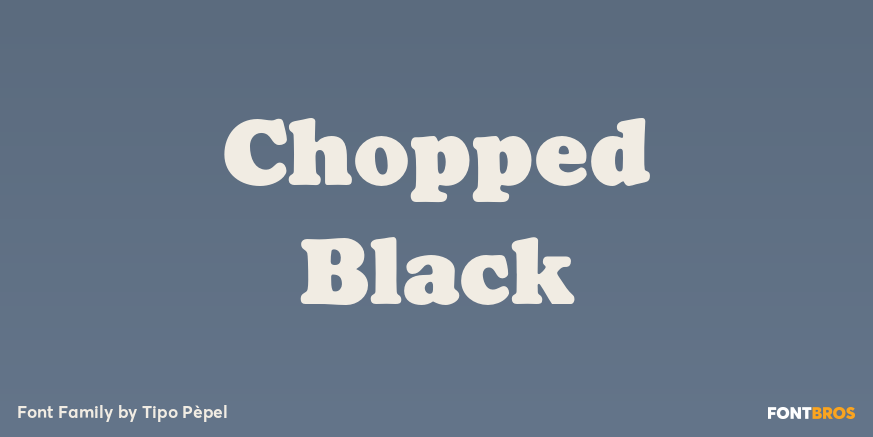
Chopped Black
About Chopped Black
This typeface was inspired by the font Pabst Heavy, designed by Chauncey Hawley Griffith in 1928 for Linotype. Because of its formal characteristics, recalls the popular Cooper Black and probably was the reaction of Linotype to counter the popularity…